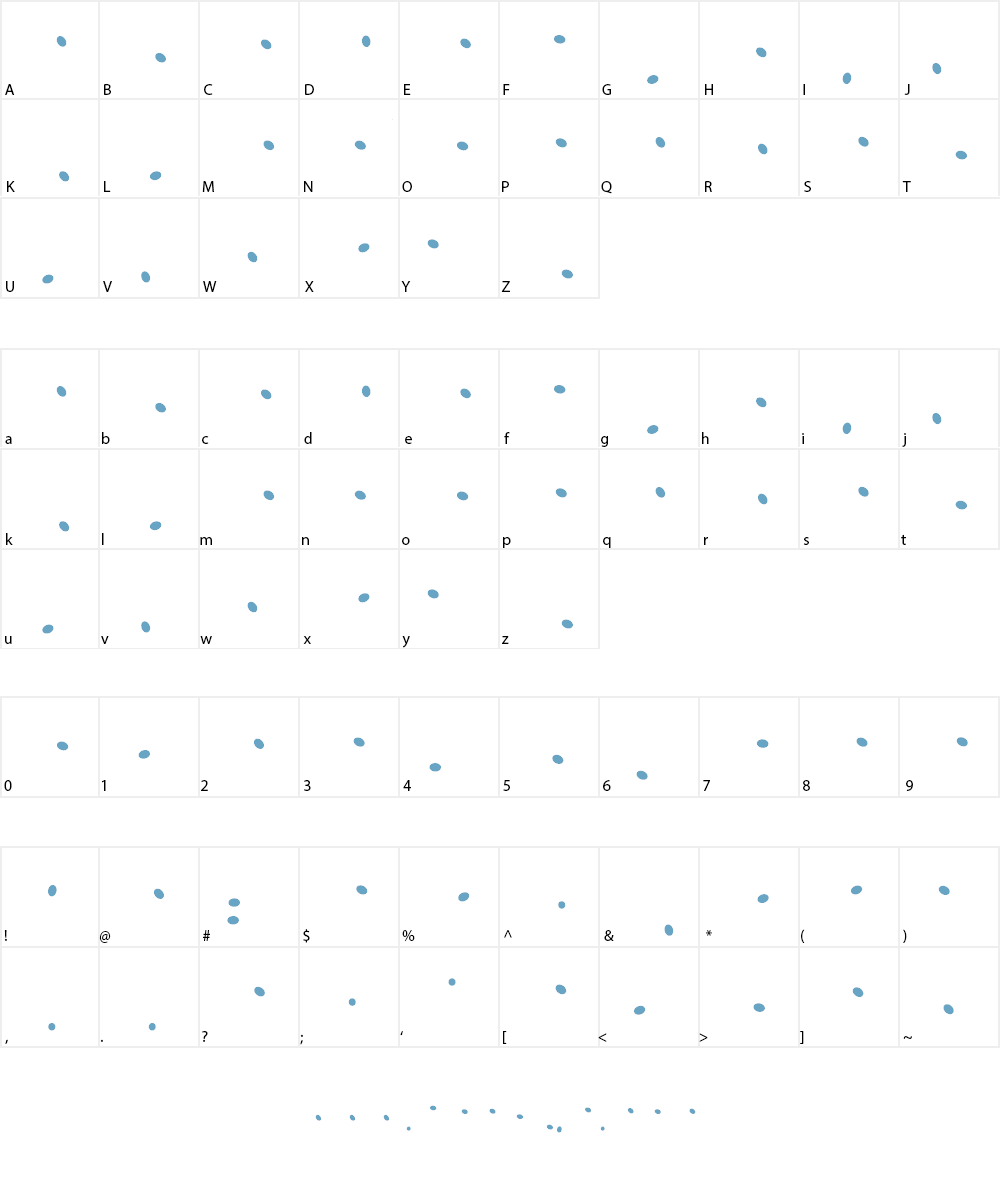
*Note this font includes "plain" and "highlight" versions. These versions can be layered to create different colored "shines" on your text! Have fun!